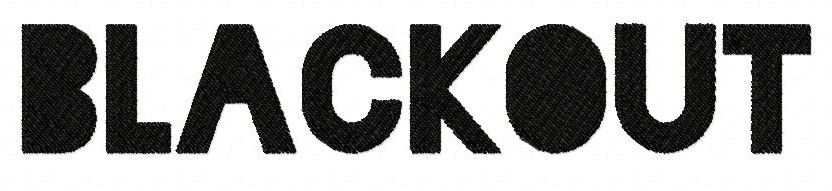
This design is the perfect fresh and hip machine embroidery font set to personalize any project for the cutting edge friend or family member! Download the Blackout Machine Embroidery Font Set for Gold Members only.